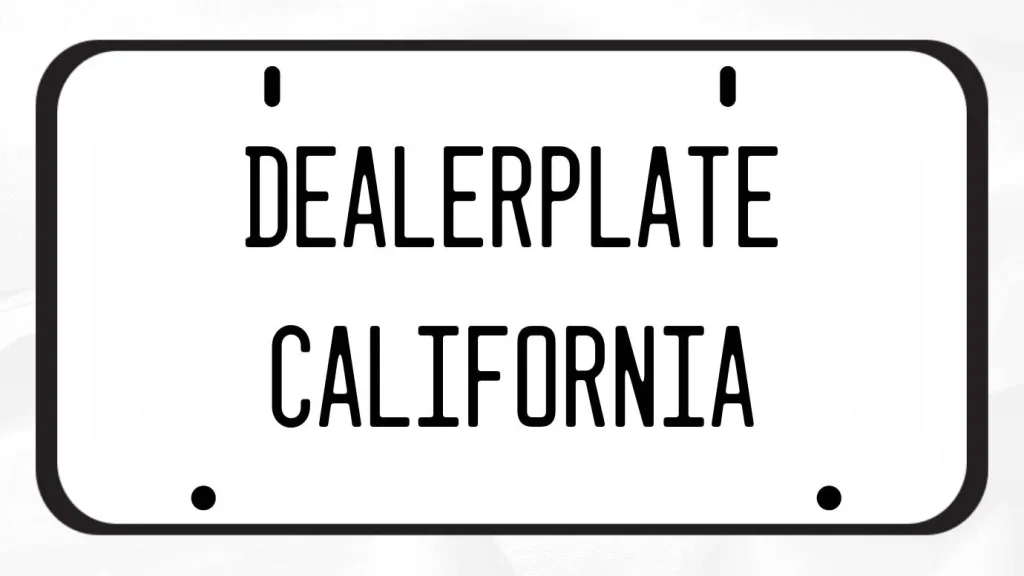
This typeface contains unique glyphs and characters the design may be an incredible choice for any task with that unique style.
Dealerplate California Font is popular among designers because of its realistic appearance. You can also pick from a variety of gorgeous typefaces, to make unique designs. Typodermic Fonts created this text style.
This typeface contains unique glyphs and characters the design may be an incredible choice for any task with that unique style.
Also appropriate for artwork and banner design. There are smaller capital letters in it. Using this typeface in combination with many other typefaces can truly assist you in producing an original and eye-catching style.
Your simple designs will look bold and stylish with this style. It's ideal for giving your work uniqueness as well as making it differentiate itself from other typefaces. Due to its eye-catching design, this typeface is commonly used in a lot of stylish projects. Download Dealerplate California Font Dafont
This typeface is frequently used for invitations, website headers, and regular text that requires a little individuality. Any project can have an imaginative turn by using the style. Canva and Adobe Photoshop can create trendy designs with this typeface
The typeface's popularity is increased by the number of creators who utilize it. This typeface can be used for a variety of projects, including book covers, graphics cards, and artwork. The light font is a nice pairing style with it.
You can create advertisements and social media postings using this typeface. This typeface can be utilized for a wide range of international design projects, such as paintings and gaming graphics.
The lovely typography is perfect for creating cards and mugs. This collection has a wide range of uses, including blog, theme, and catalog design.
Dealerplate California is a contemporary sans-serif typeface. It highlights unique textual styles. This family highlighted numerous ligatures.
This typeface can be used for a variety of projects, including book covers, graphics cards, and artwork. The font is beautifully designed and has an attractive appearance.